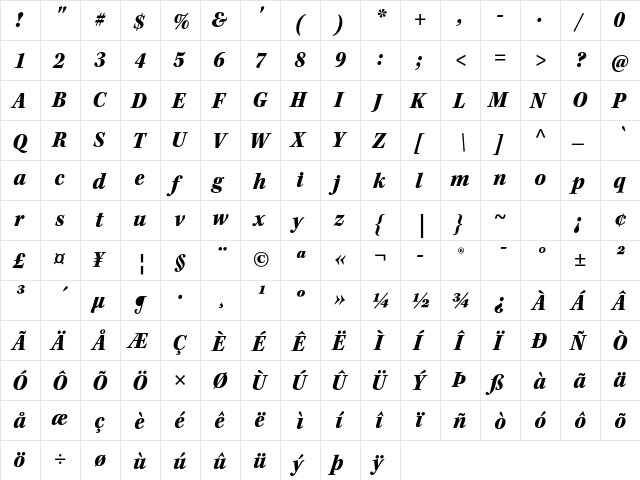
Kepler Std Black Semicondensed Italic
| Designer | Robert Slimbach |
Design Context for Kepler Std Typeface
Kepler Std is a composed and adaptable typeface that performs quietly and consistently across a wide range of design contexts. The slanted form adds forward momentum and visual energy. Its narrow stance lets it pack a punch even in space-constrained designs.
Pro Tip: Use Kepler Std for emphasis, pull quotes, and subheadings where its slanted energy can add rhythm to the layout.